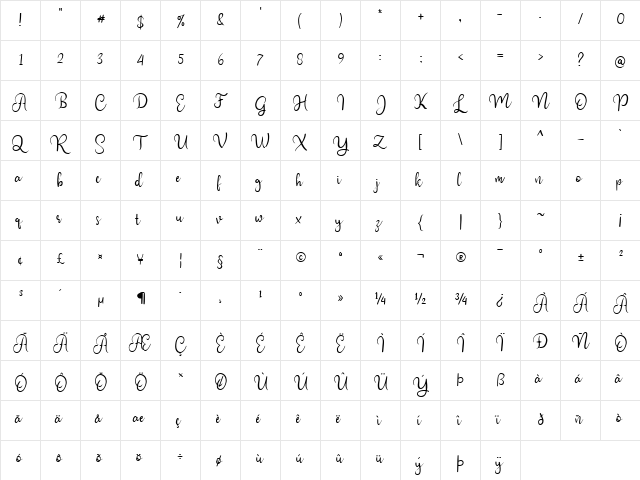
Staylist Regular
| Designer | Cahyo Surendro |
Design Context for Staylist Typeface
Staylist is a composed and adaptable typeface that performs quietly and consistently across a wide range of design contexts.